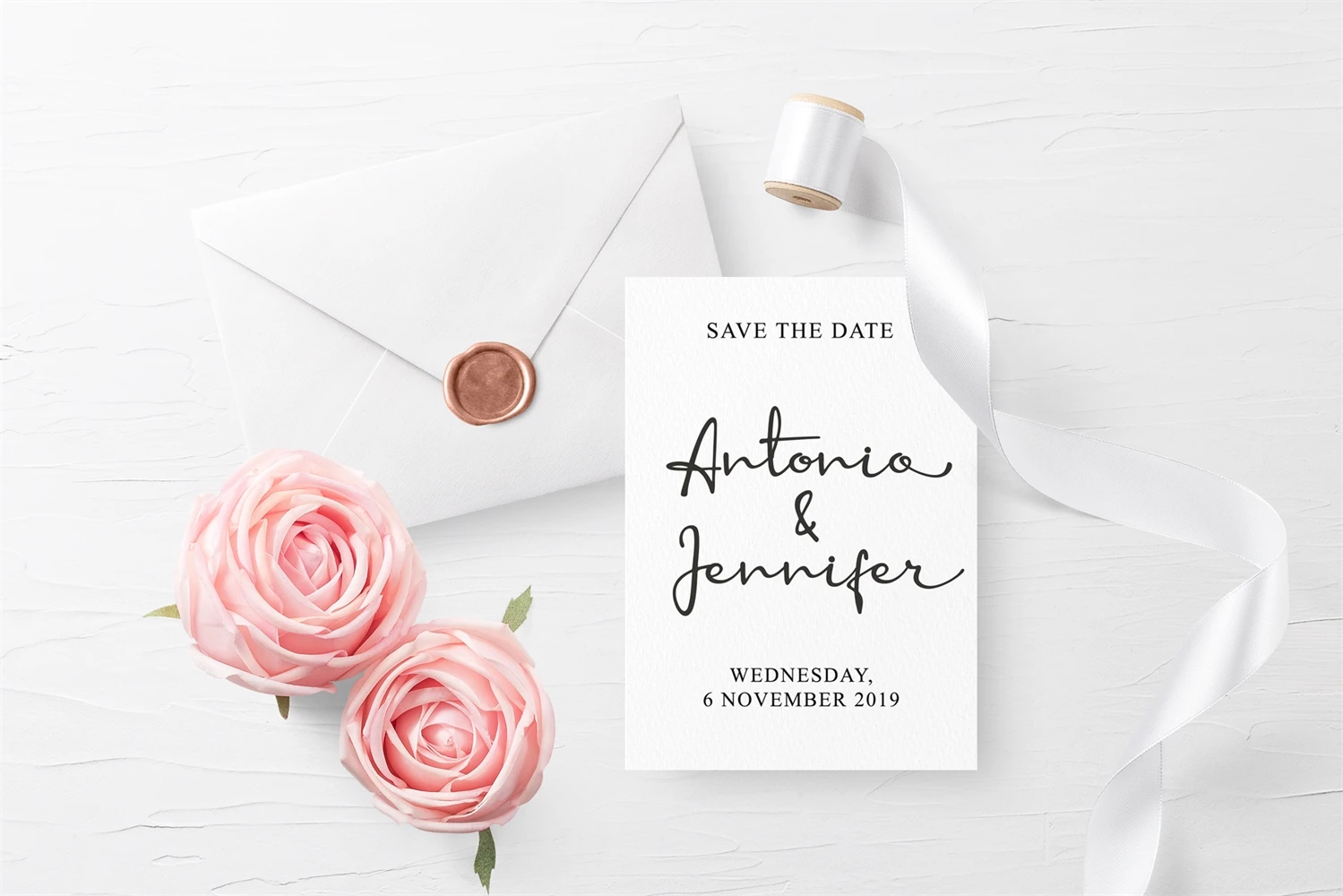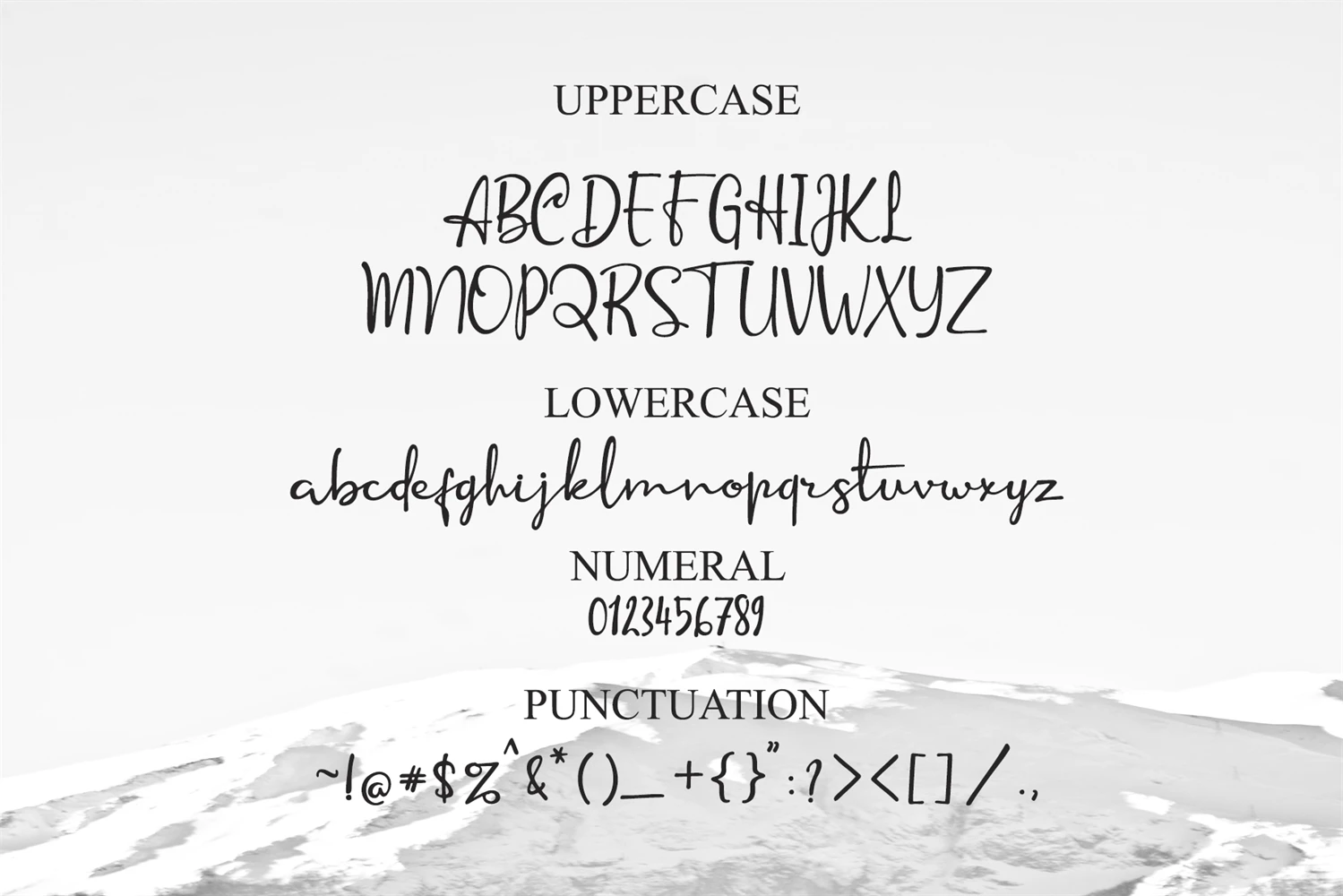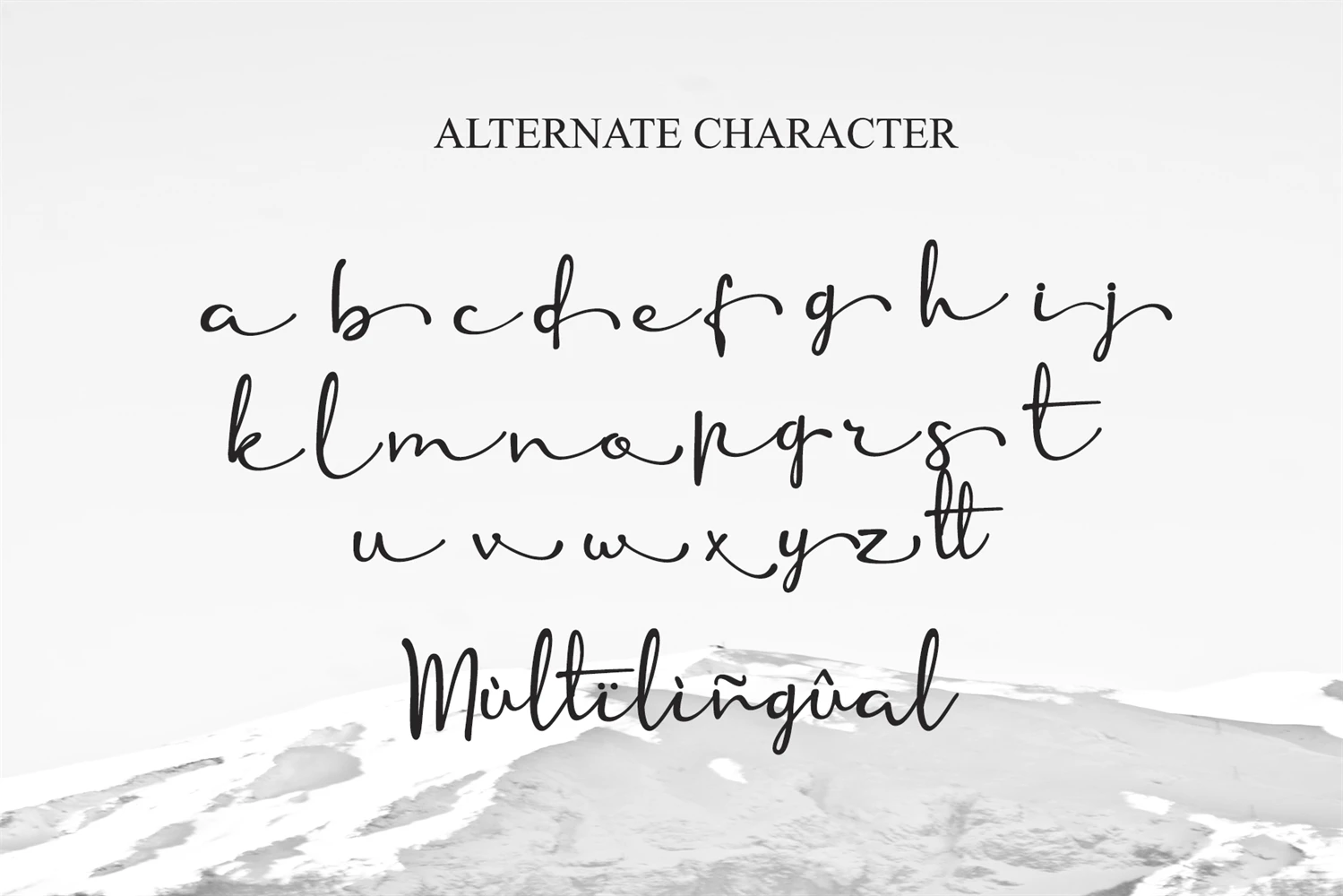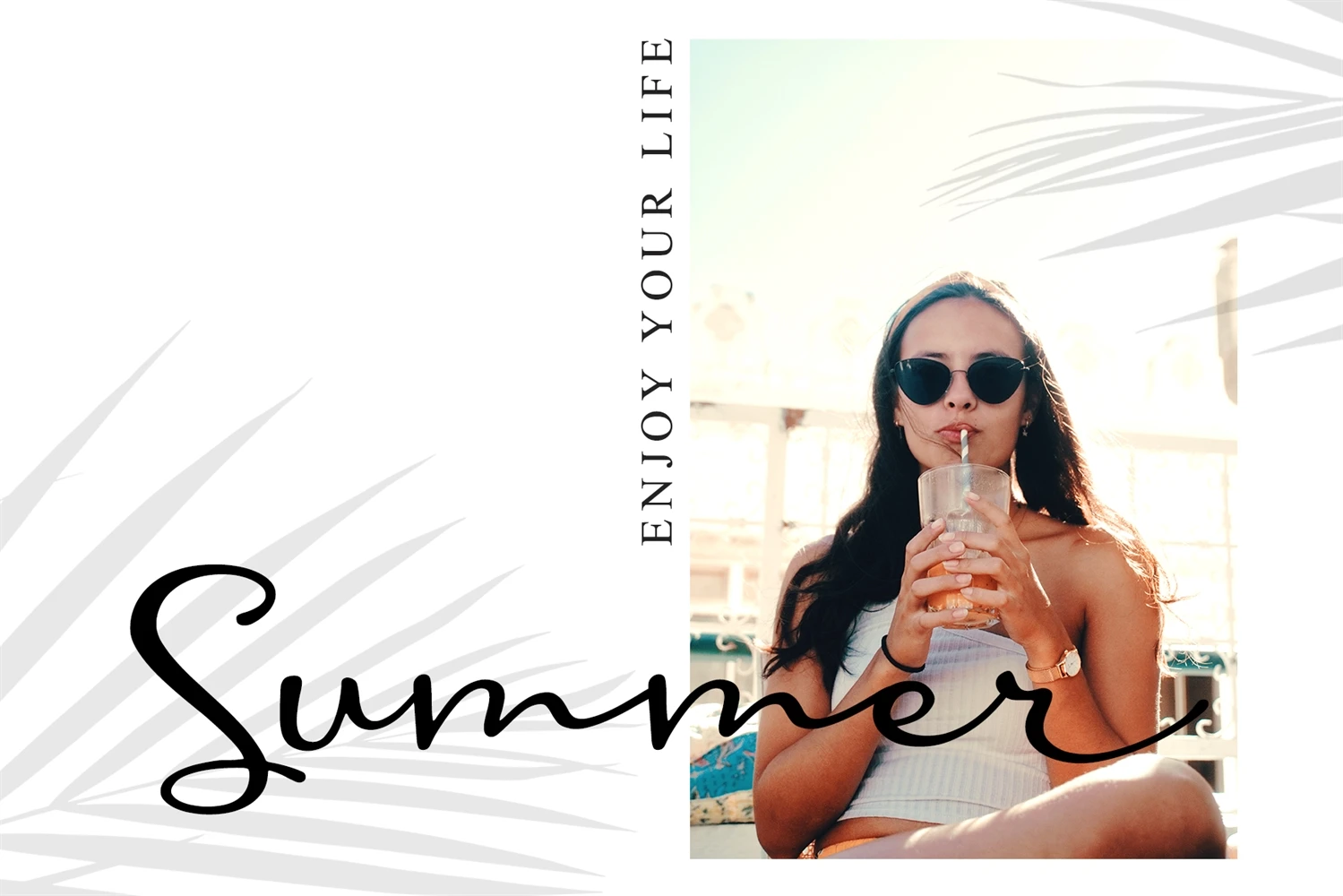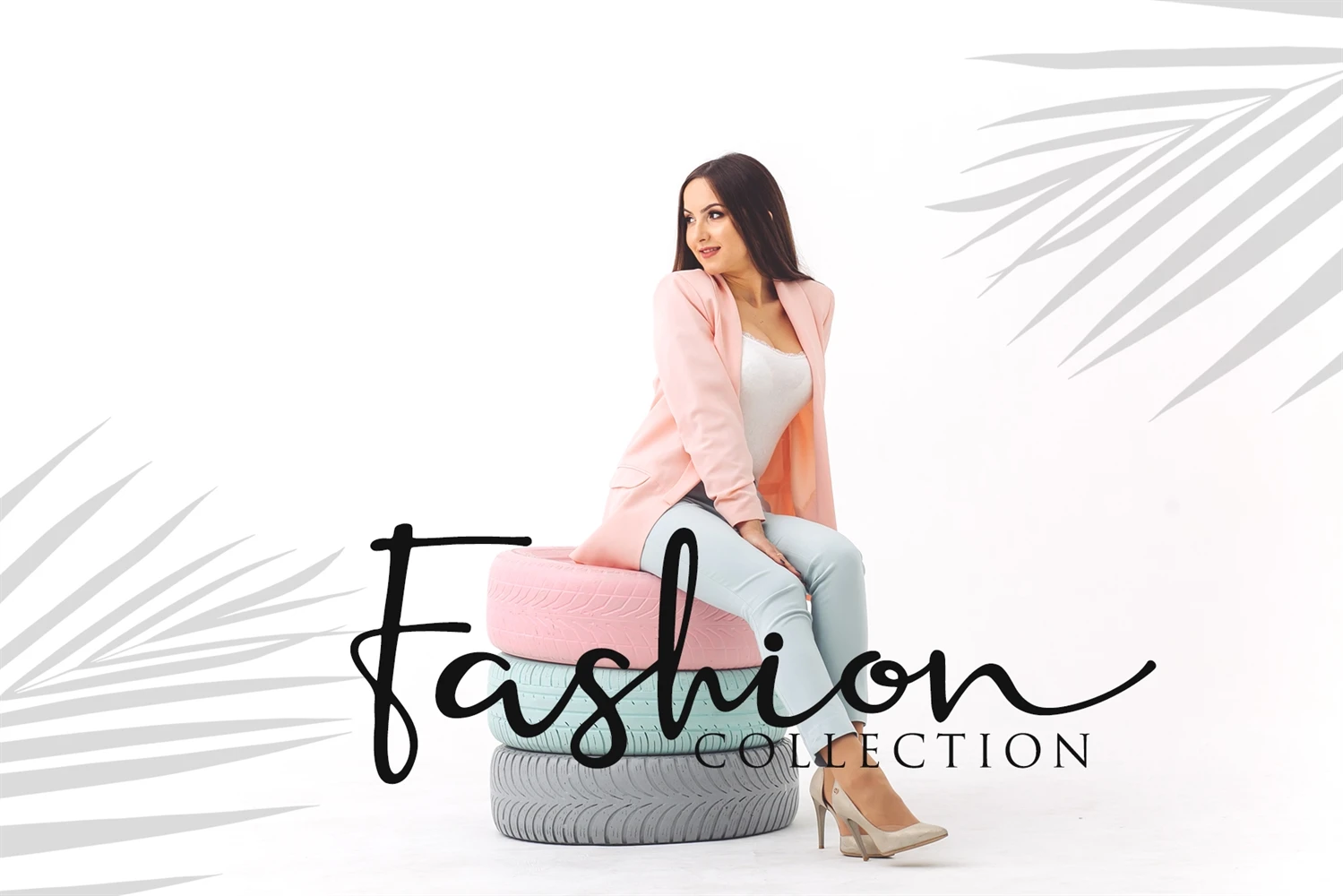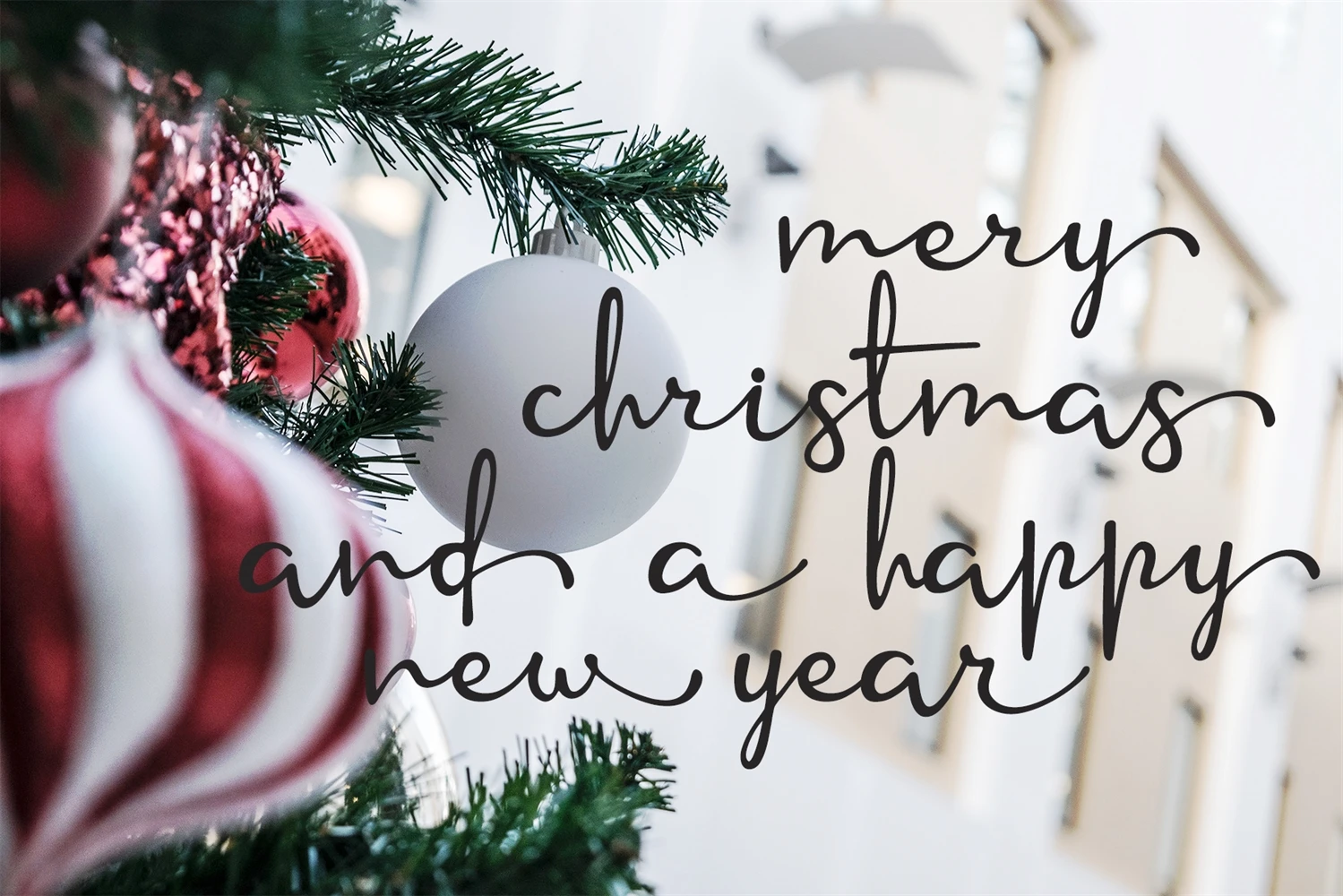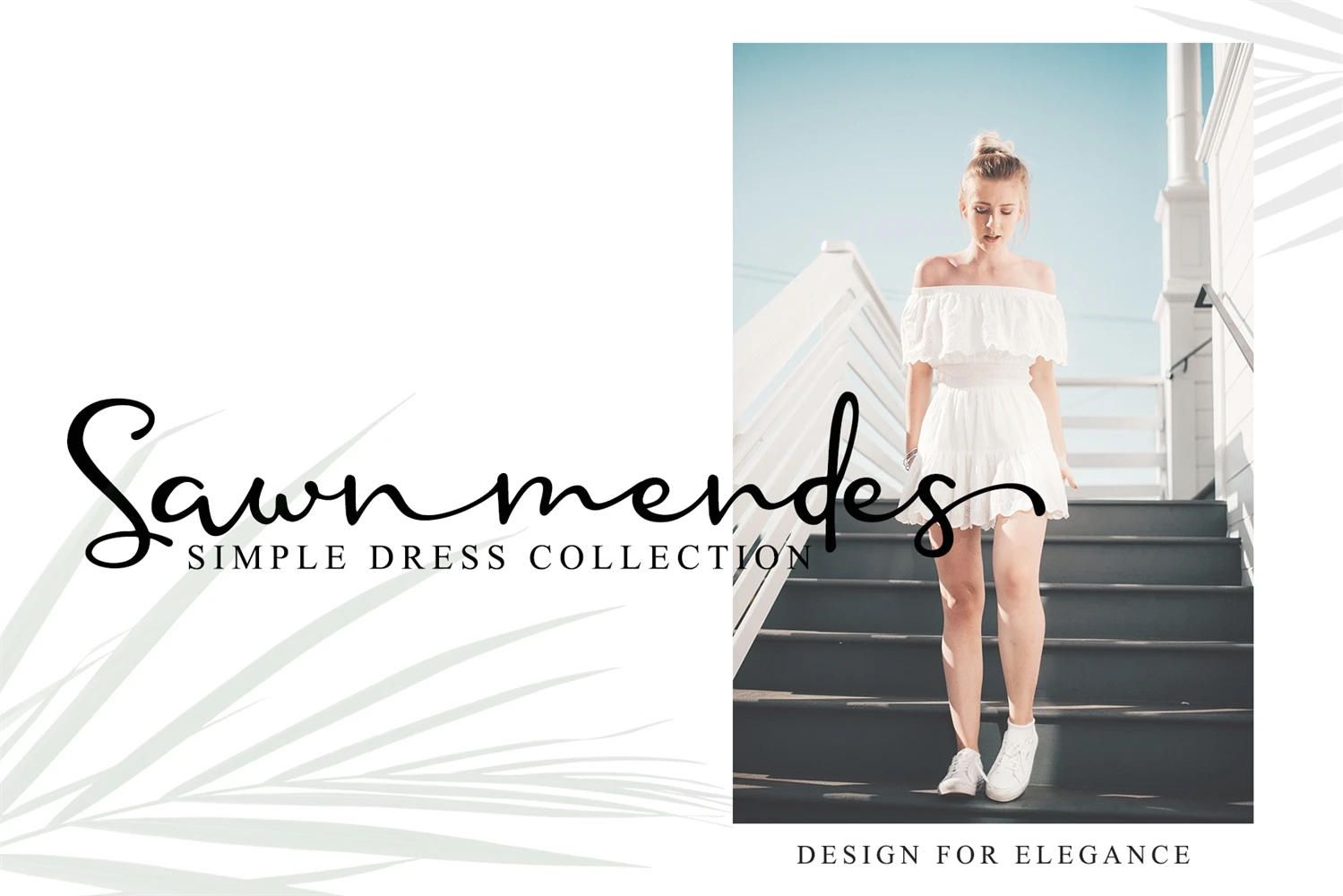
Introducing the elegant Anuin! Anuin is Scrip font, every single letters have been carefully crafted to make your text looks beautiful. With modern script style this font will perfect for many different project ex: photography, watermark, quotes, blog header, poster, wedding, branding, logo, fashion, apparel, letter, invitation, stationery, etc.
This font including alternate glyph. You can access the alternate glyph via Font Book (Mac user) or Windows Character Map (Windows user).